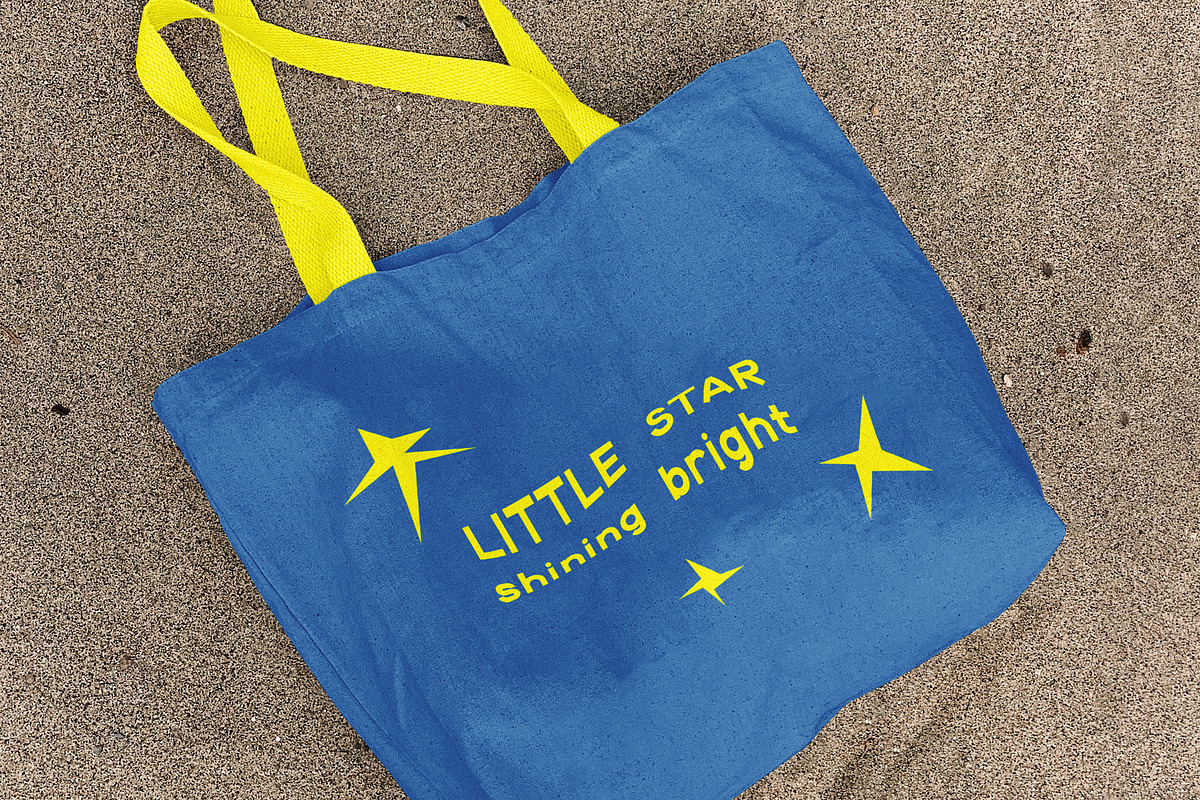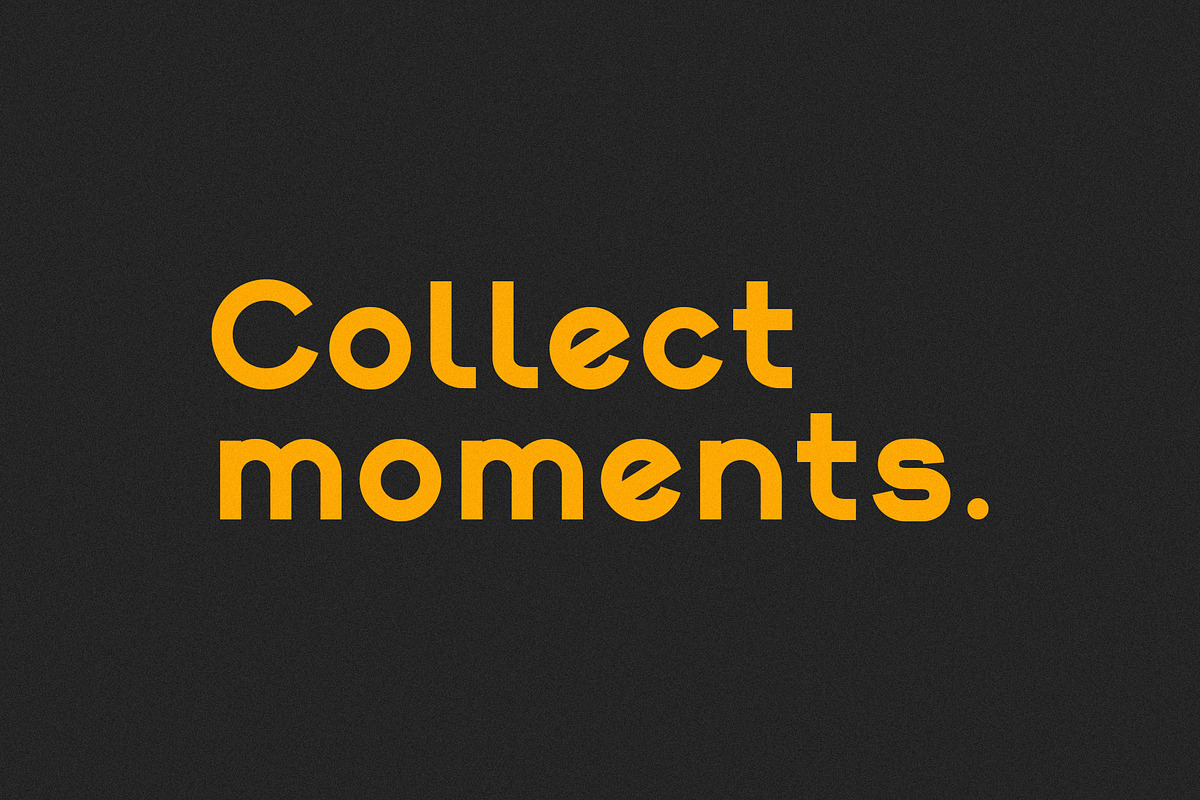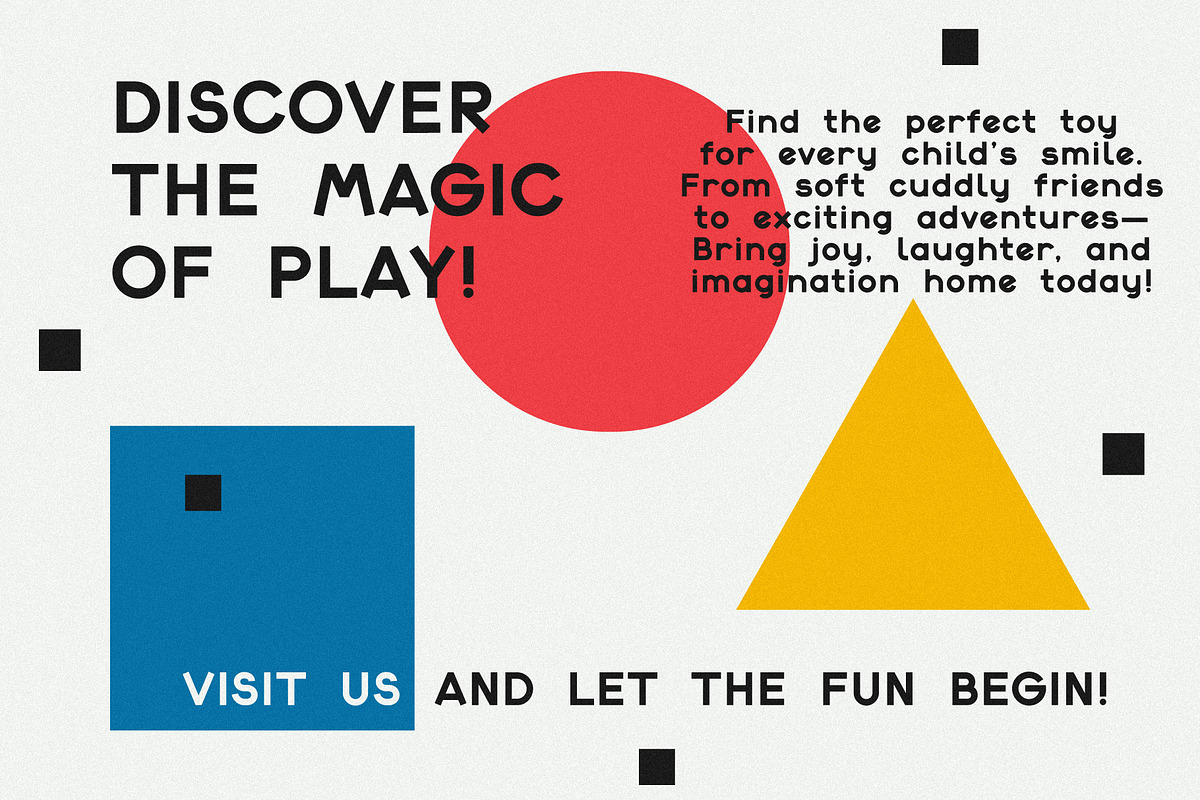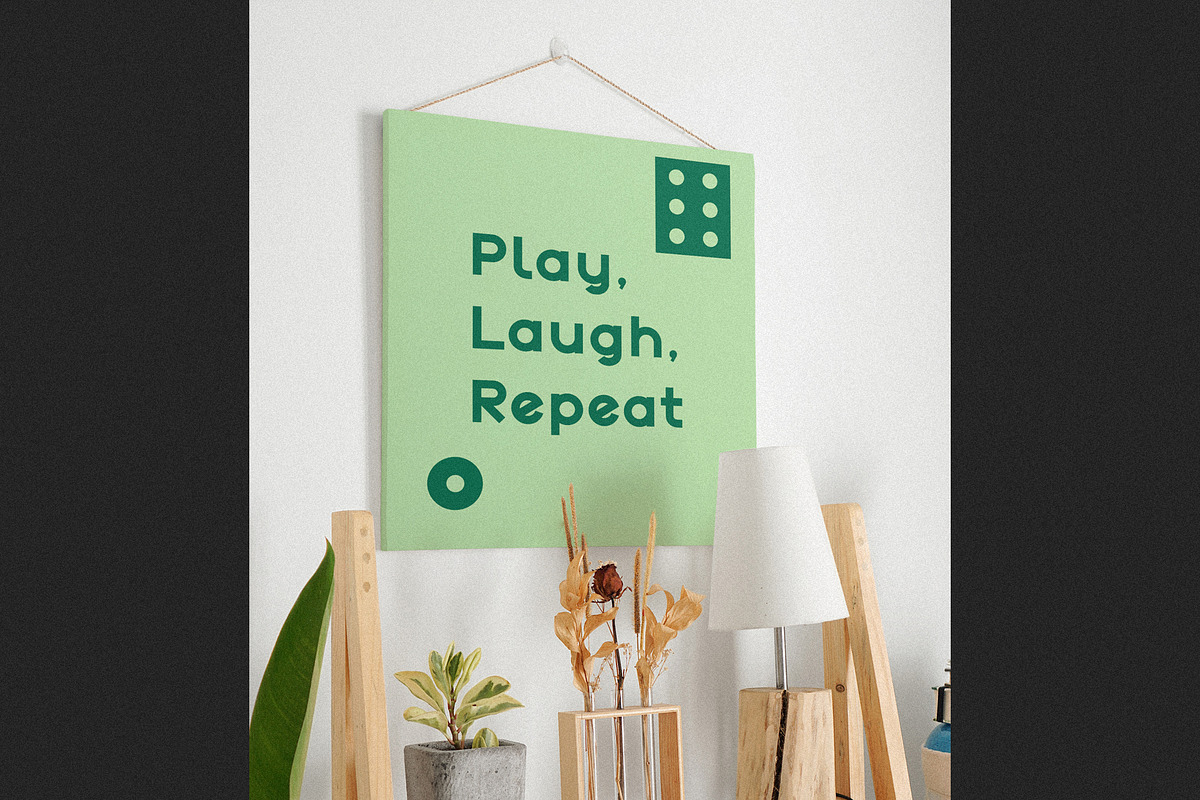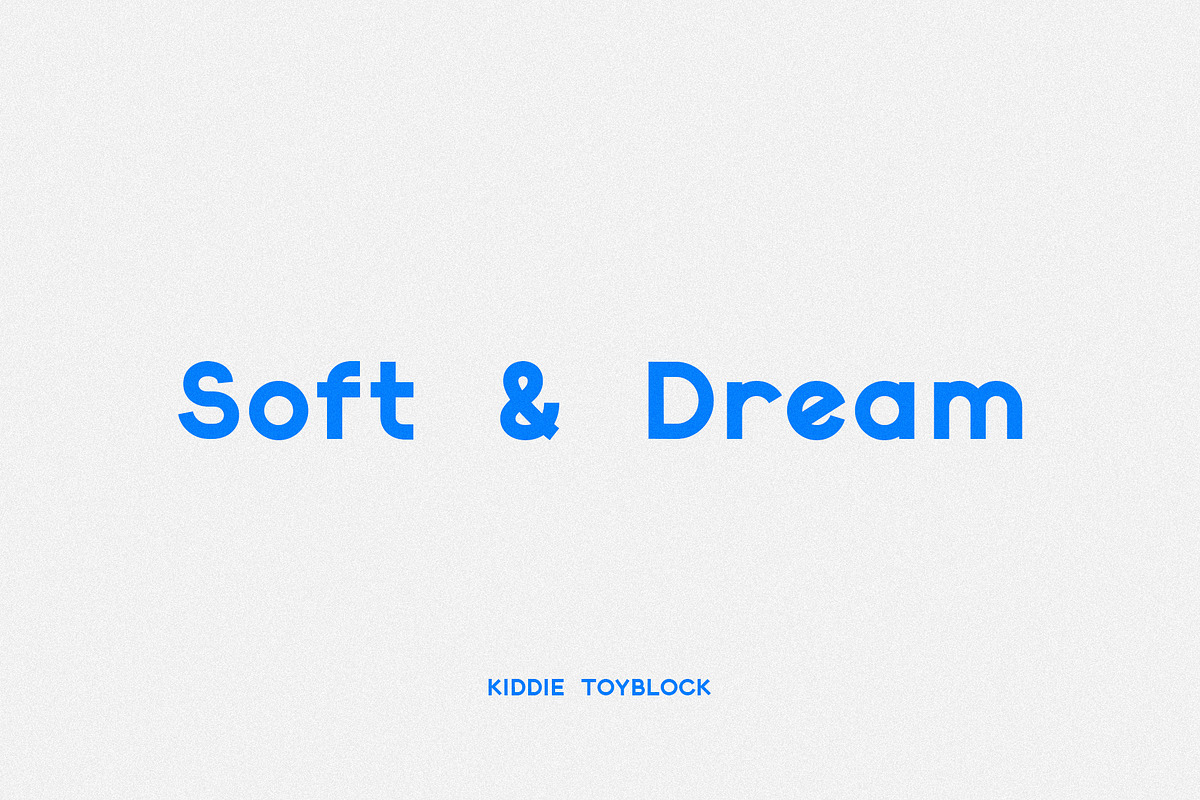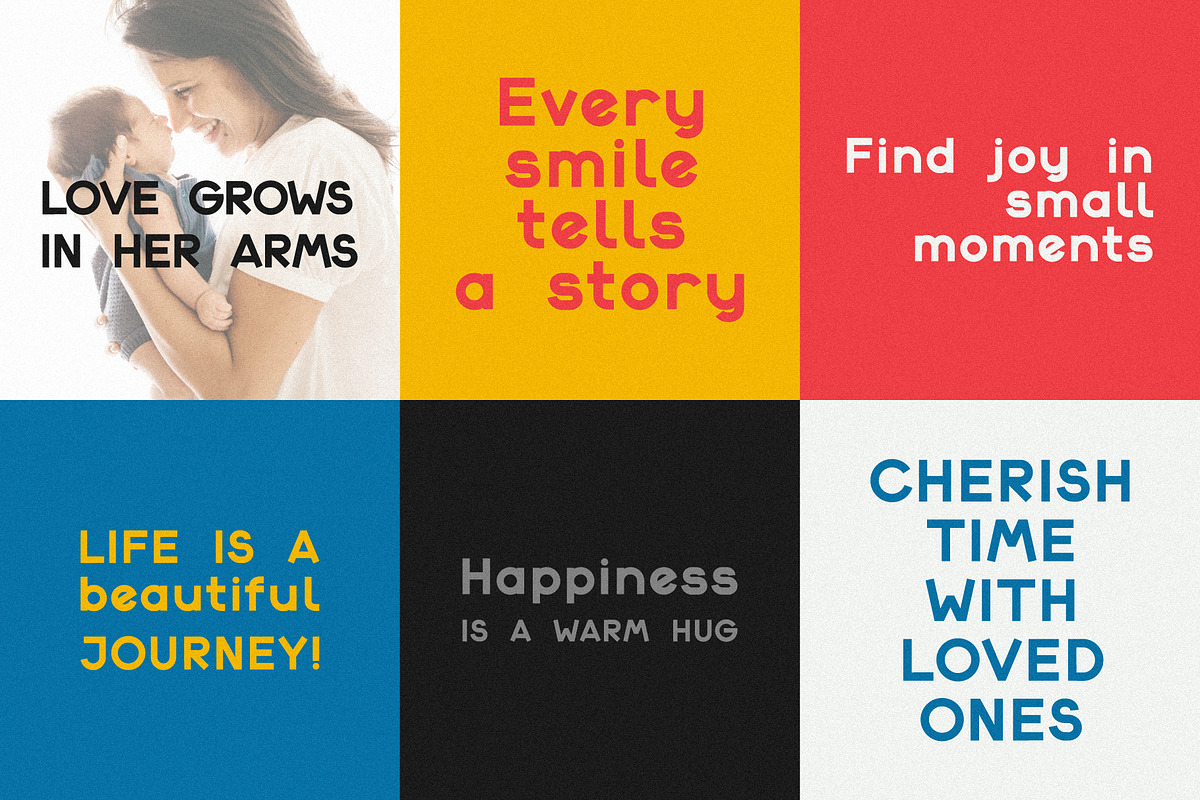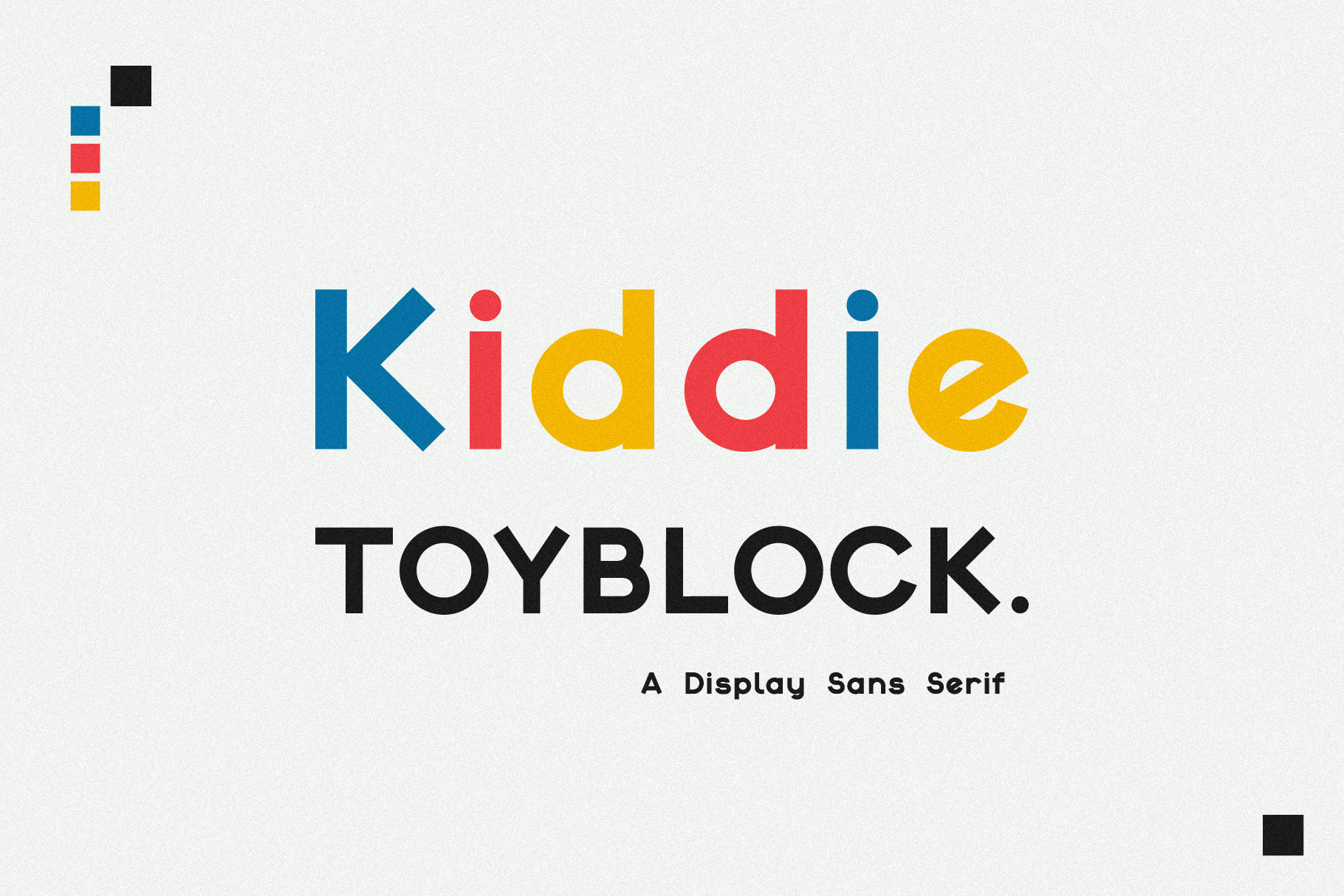
Kiddie Toyblock Font
Kiddie Toyblock is a sans serif display font features simple, clean shapes inspired by children's toy blocks. Its large, easy-to-read letters capture a playful and friendly spirit, making it perfect for designs that want to evoke childhood fun and creativity. The geometric forms give it a modern yet approachable look, ideal for headlines, posters, and branding aimed at families and kids.